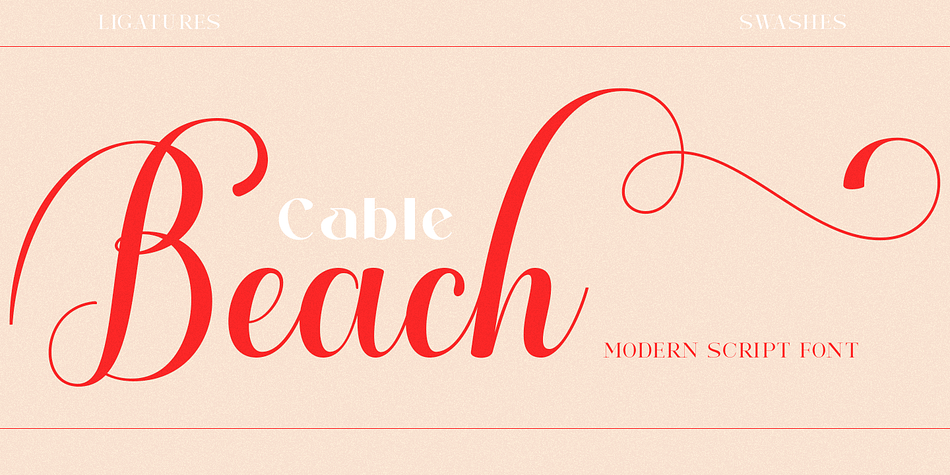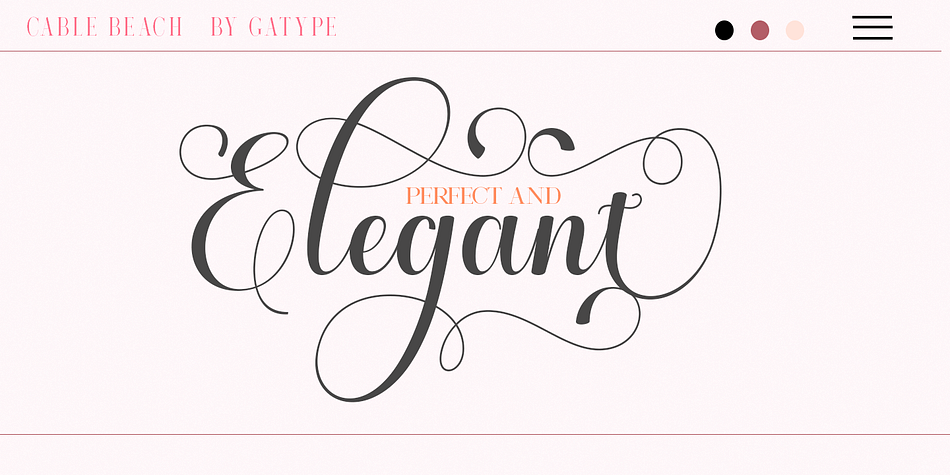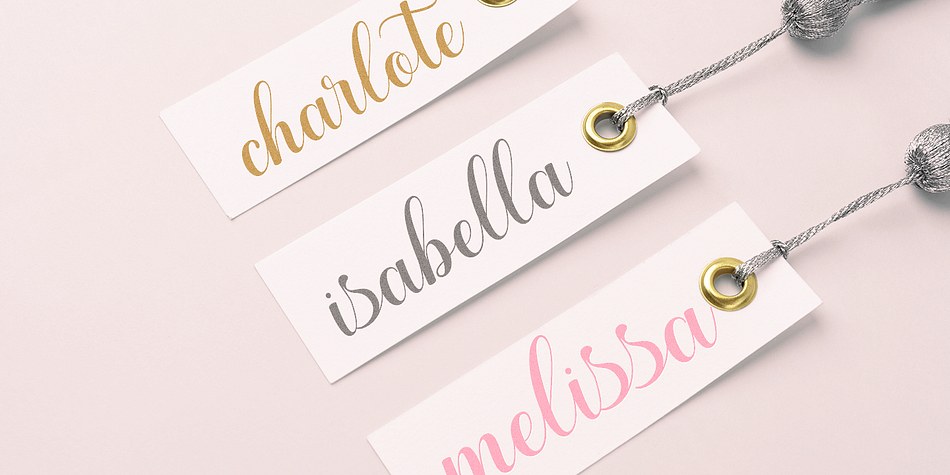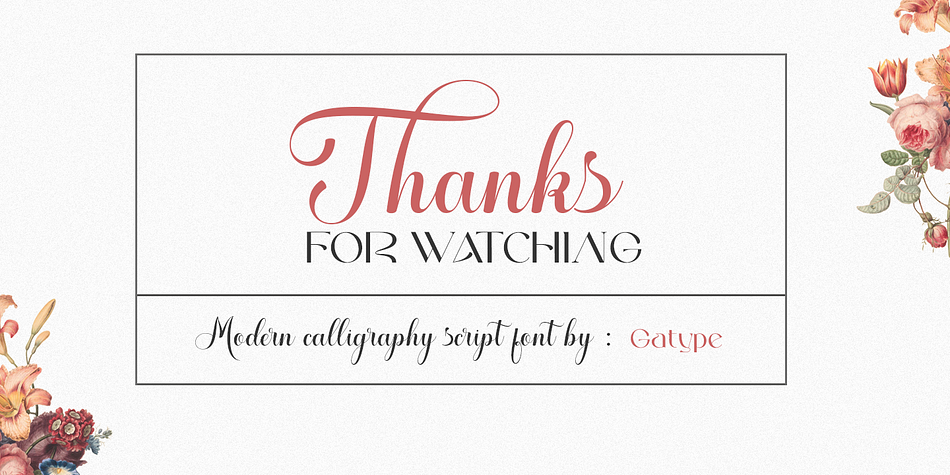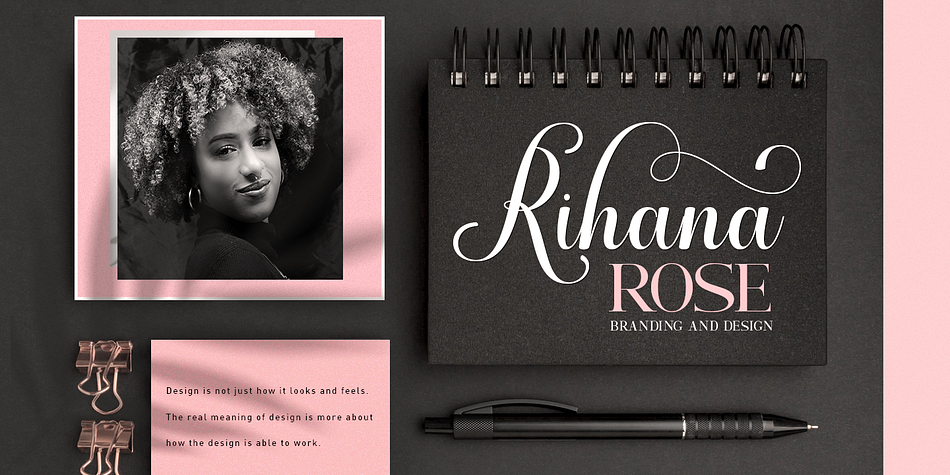
Cable Beach
Cable Beach is a modern calligraphy font family published by Gatype.
Cable beach Script is an elegant calligraphy font, it’s casual and pretty. Can be used for various purposes. such as logos, product packaging, wedding invitations, branding, headlines, signage, labels, signatures, book covers, posters, quotes and more. Cable beach Script is encoded with PUA Unicode, which allows full access to all additional characters without having to special design. software. Mac users can use Font Book , and Windows users can use the Character Map to view and copy any additional characters to paste into your favorite text.